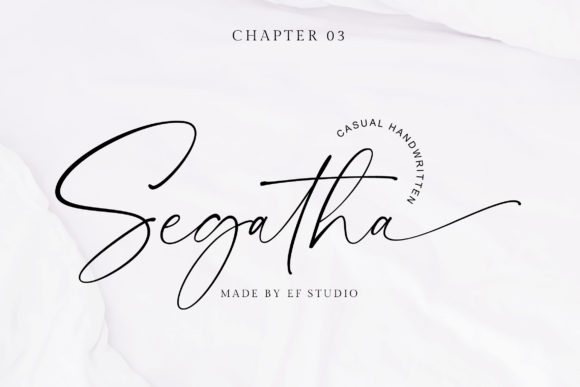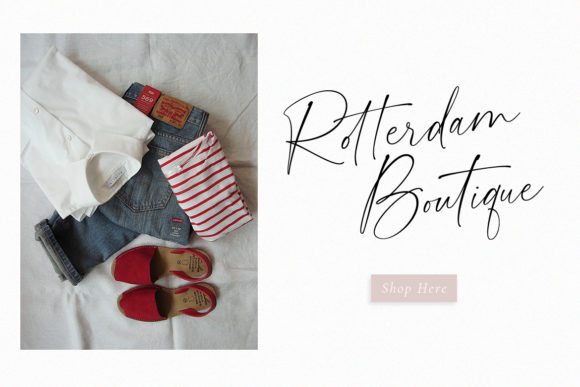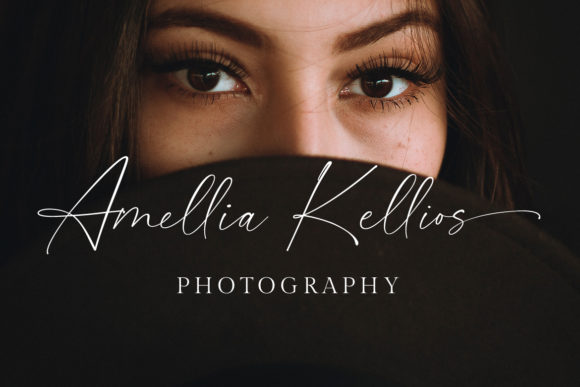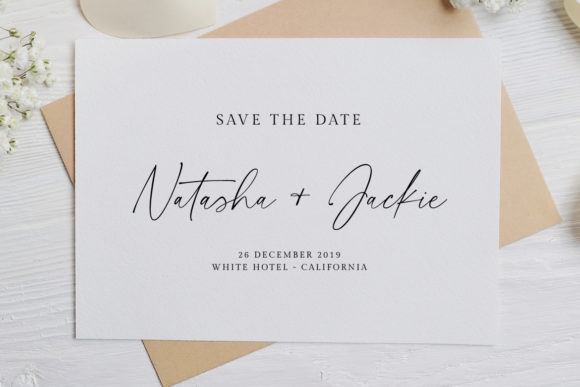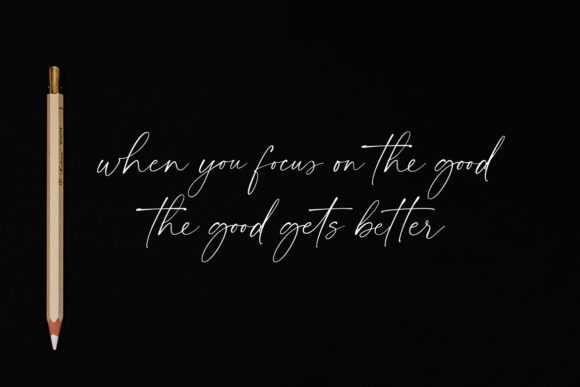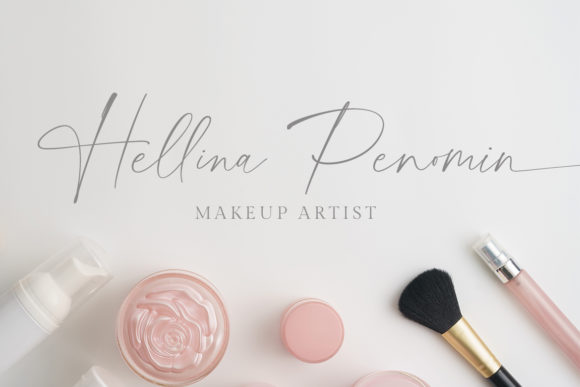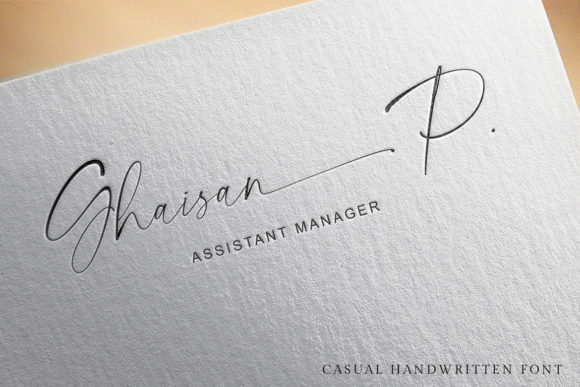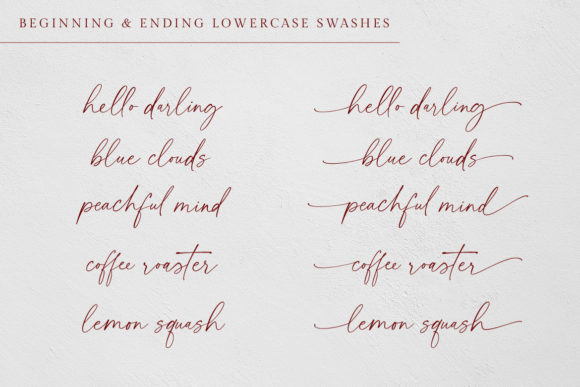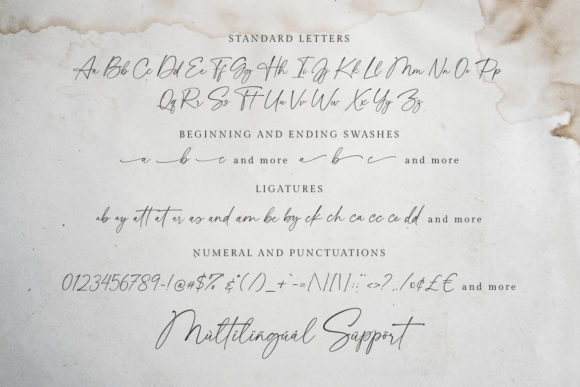
Segatha Font
About Segatha Font
Segatha contains daring and luscious swashes that radiate authenticity. It’s your go-to font for adding that personal zing to your next design idea.